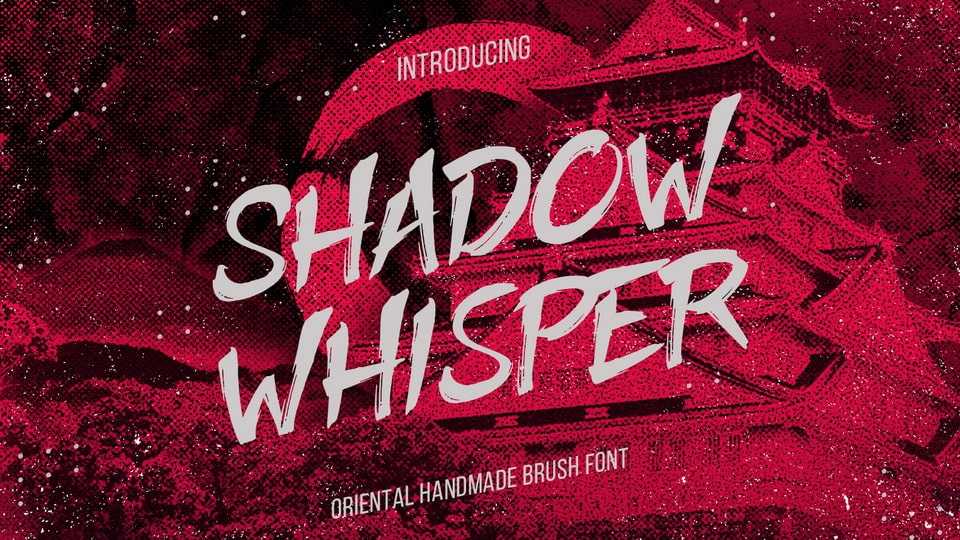
Download Shadow Whisper font, a premium bold and smooth handmade brush typeface that combines the fluidity of hand-drawn strokes with a touch of spontaneity.